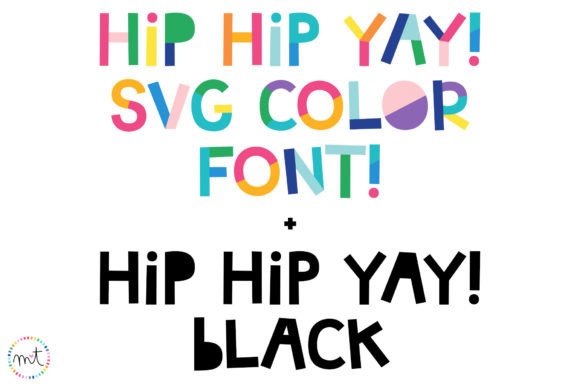
Introducing Hip Hip Yay Font, the ultimate choice for those seeking the Best Font For A Fun Flyer! Created by the talented Miss Tiina, this colorful font is not your average typeface. It is a vibrant and whimsical display font that has the power to transform any product into something extraordinary!
Are you tired of blending in with the crowd? Hip Hip Yay Font is here to help you stand out! With its unique and eye-catching design, this font is perfect for adding a touch of fun and playfulness to your creations. Whether you're designing banners, posters, covers, titles, or even magazines, this font is sure to grab attention and leave a lasting impression.
Imagine your flyer catching the eyes of passersby, drawing them in with its bold and bright typography. With Hip Hip Yay Font, you can create a flyer that not only communicates your message effectively but also exudes personality and charm. It's the perfect choice for those who want to add a splash of excitement and energy to their designs.
This font is not just visually appealing; it also offers a wide range of creative possibilities. Its versatility allows you to experiment with different styles, sizes, and colors, giving you the freedom to express your unique vision. Whether you're going for a playful and whimsical look or a bold and energetic vibe, Hip Hip Yay Font has got you covered.
But that's not all! Hip Hip Yay Font is also incredibly user-friendly. With its easy-to-read characters and smooth curves, it ensures a seamless reading experience, even at smaller sizes. It's a font that not only looks fantastic but also performs flawlessly.